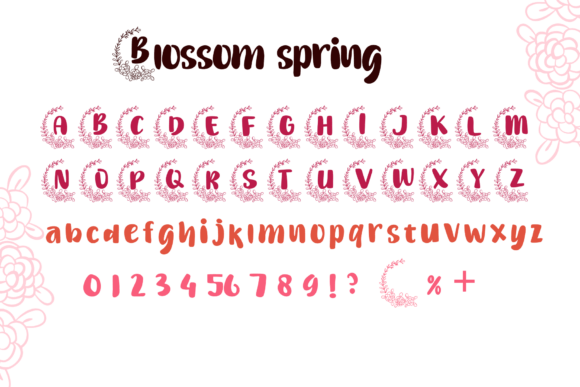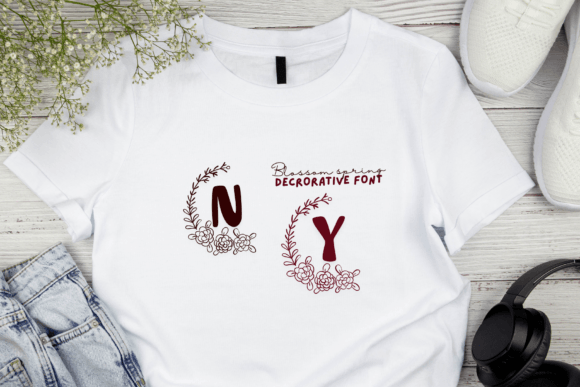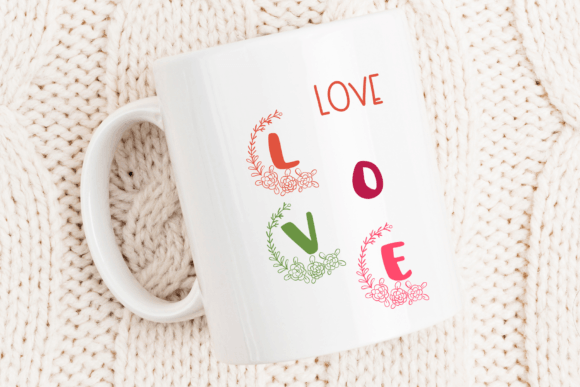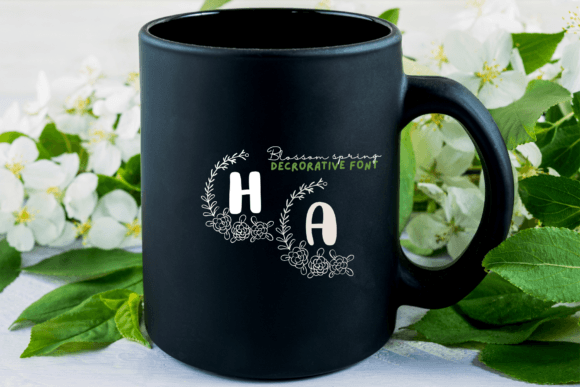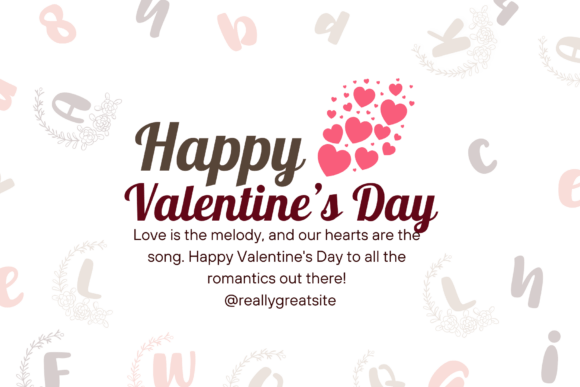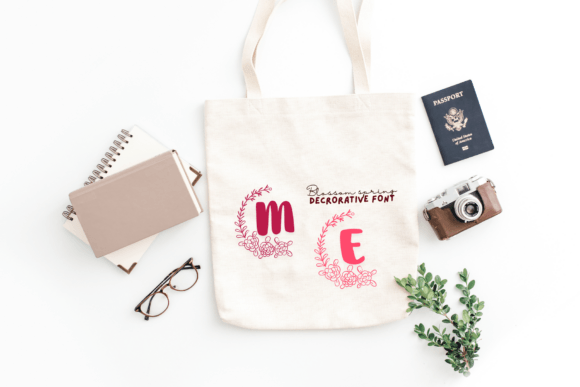
Blossoming Creativity: The Charm of Blossom Spring Font
Have you ever sat down with a blank page, a pen, and a burst of inspiration, only to find that your ideas are as fleeting as the petals of a spring flower? It’s a familiar feeling for many creatives, but what if you had the perfect tool to help you capture those ephemeral moments and bring them to life? Enter the Blossom Spring Font, a beautiful decorative font designed to add a touch of whimsy and elegance to your designs.
This lovely font is perfect for writers, artists, and designers who want to add a personal touch to their work. Whether you’re taking notes, writing a diary, or creating greeting cards, the Blossom Spring Font is a valuable addition to your toolkit. Its versatility makes it suitable for a wide range of designs, from banners and social media posts to mugs and shirts.
Blossom Spring Font Key Features
- Font Styles: Blossom Spring Font includes multiple font styles, including Regular, Bold, Italic, and Bold Italic, providing versatility for various design applications.
- Character Count: The font contains a comprehensive character set, including uppercase and lowercase letters, numerals, punctuation marks, and special characters, covering most language requirements.
- Unique Characteristics: This font features a unique, hand-drawn design with a mix of floral and spring-inspired elements, giving it a distinctive and eye-catching appearance.
Blossom Spring Font Review
I recently had the chance to work with the Blossom Spring Font, and I have to say it’s a beautiful addition to any design project. ✨ The elegant and delicate style of the font is perfect for creating a sense of serenity and calmness, making it ideal for spring-themed designs or any project that needs a touch of sophistication.
Here are some of the things that work well with this font:
- ✨ Unique and elegant design that sets it apart from other fonts
- ✨ Highly versatile and can be used for a variety of design projects, from invitations to branding
- ✨ Beautifully detailed and intricate lettering that adds a touch of whimsy to designs
- ⚠️ Limited character set, which may require additional font pairing for more complex designs
- ⚠️ Some characters may be difficult to read at smaller font sizes, which could impact readability
Overall, I’m impressed with the Blossom Spring Font. While it may have some limitations, its unique design and versatility make it a great addition to any designer’s toolkit. With a little creativity and planning, you can create stunning designs that showcase the beauty of this font.
The Blossom Spring font is ideal for:
- Creative projects (e.g. graphic design, art, etc.)
- Spring-themed designs (e.g. Easter, Mother’s Day, etc.)
For optimal results, pair the Blossom Spring font with light, pastel colors and delicate graphics.
Q: What is the character set and language support for the Blossom Spring Font?
The Blossom Spring Font includes a comprehensive character set that supports Latin, Cyrillic, and Greek scripts. It also includes a range of language-specific characters, including accents, diacritics, and special characters. The font is compatible with most modern languages, including English, Spanish, French, German, Italian, and many others.